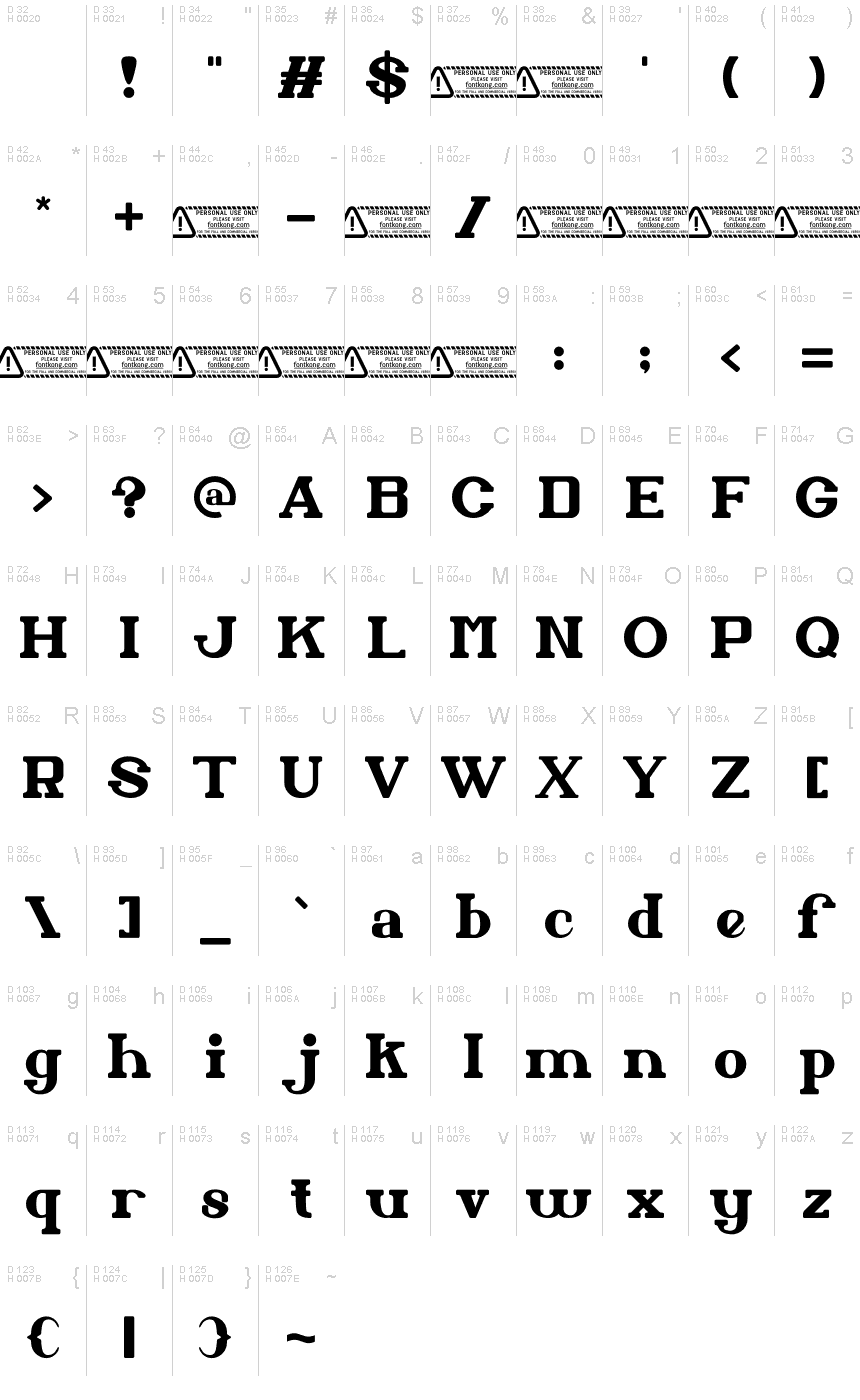
Arabella
Arabella, crafted by the innovative Kong Font, stands out as a bold serif typeface that effortlessly marries modern chic with classic elegance. With its medium serifs and strong presence, Arabella is not just a font but a statement piece designed to command attention. Its readability, paired with an artistic flair, makes it versatile for an array of creative projects.
From the glossy pages of fashion and beauty magazines to the dynamic world of web promotions and social media visuals, Arabella's bold weight is ideal for headlines that need to leave a lasting impression. It's perfectly suited for branding endeavors where character and style are paramount—think brand tags that speak luxury or posters that demand a second glance.